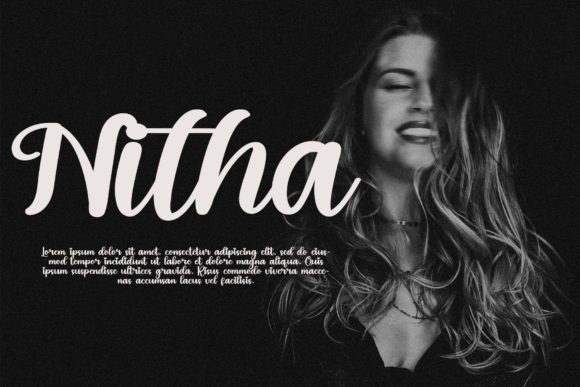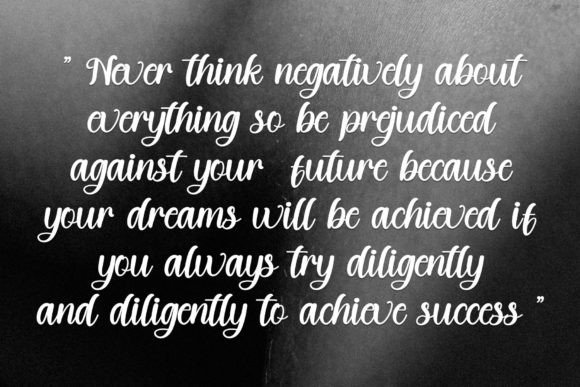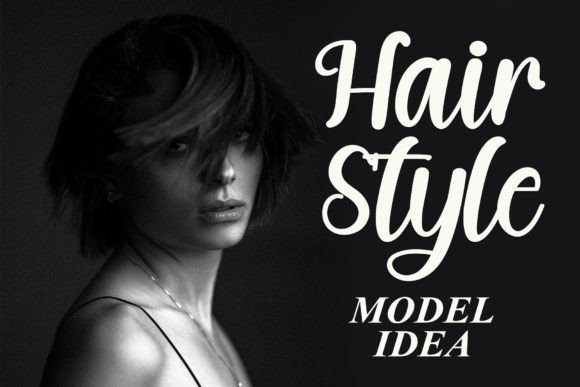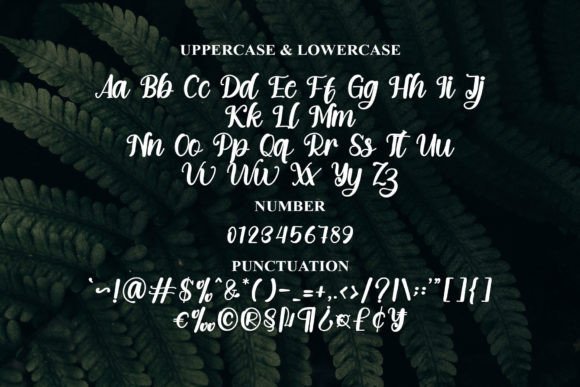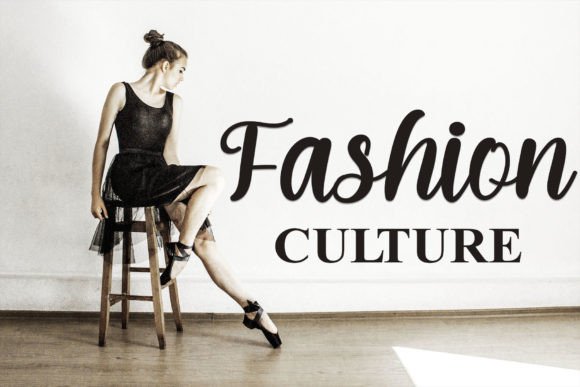
Elegant Font: Add a Touch of Romance to Your Designs
Elegant is an enchanting handwritten font that has captured the hearts of designers and crafters alike. This versatile script font has a wide spectrum of applications, ranging from greeting cards to headlines, and is guaranteed to add a romantic feel to your next project. In this article, we’ll dive into the world of Elegant font, exploring its features, uses, and benefits, as well as provide tips on how to make the most of this beautiful font.
What is Elegant Font?
Elegant font is a type of script font that exudes elegance and sophistication. Its handwritten style gives it a personal and intimate feel, making it perfect for designs that require a touch of warmth and personality. The font features flowing lines, delicate curves, and a subtle flair at the terminals, giving it a refined and polished look.
Features of Elegant Font
Elegant font comes with a range of features that make it a versatile and practical choice for designers. Some of its key features include:
- Handwritten style: Elegant font has a beautiful, handwritten style that adds a personal touch to any design.
- Versatility: This font can be used for a wide range of applications, from greeting cards to headlines, and even social media graphics.
- Romantic feel: Elegant font has a romantic and whimsical feel that makes it perfect for designs that require a touch of elegance and sophistication.
- Easy to read: Despite its ornate style, Elegant font is easy to read, making it a great choice for body text as well as headlines.
Uses of Elegant Font
Elegant font is a versatile font that can be used for a wide range of applications. Some of the most popular uses of Elegant font include:
- Greeting cards: Elegant font is perfect for creating beautiful and elegant greeting cards for special occasions such as weddings, anniversaries, and birthdays.
- Headlines and titles: This font is great for creating eye-catching headlines and titles for blogs, magazines, and other publications.
- Social media graphics: Elegant font can be used to create stunning social media graphics, including Facebook posts, Instagram stories, and Pinterest pins.
- Wedding and event invitations: This font is a popular choice for wedding and event invitations, as it adds a touch of elegance and sophistication to the design.
Benefits of Using Elegant Font
There are many benefits to using Elegant font in your designs. Some of the most significant advantages include:
- Unique and distinctive look: Elegant font has a unique and distinctive look that sets it apart from other fonts.
- Emotional connection: This font has a romantic and whimsical feel that can help create an emotional connection with your audience.
- Versatility: Elegant font can be used for a wide range of applications, making it a great addition to any designer’s font library.
Tips for Using Elegant Font
Here are some tips for using Elegant font in your designs:
- Use it sparingly: Elegant font is a statement font, so use it sparingly to avoid overwhelming your design.
- Pair it with a simple font: Pair Elegant font with a simple font, such as Arial or Helvetica, to create a striking contrast.
- Experiment with colors: Elegant font looks great in a range of colors, so experiment with different colors to find the one that works best for your design.
- Pay attention to spacing: Make sure to pay attention to spacing when using Elegant font, as it can be prone to being a bit ornate.
Elegant font is a beautiful and versatile script font that can add a touch of romance and elegance to any design. With its handwritten style, flowing lines, and delicate curves, this font is perfect for designers and crafters who want to create stunning and sophisticated designs. Whether you’re creating greeting cards, headlines, or social media graphics, Elegant font is a great choice. So why not give it a try and see how it can elevate your designs?